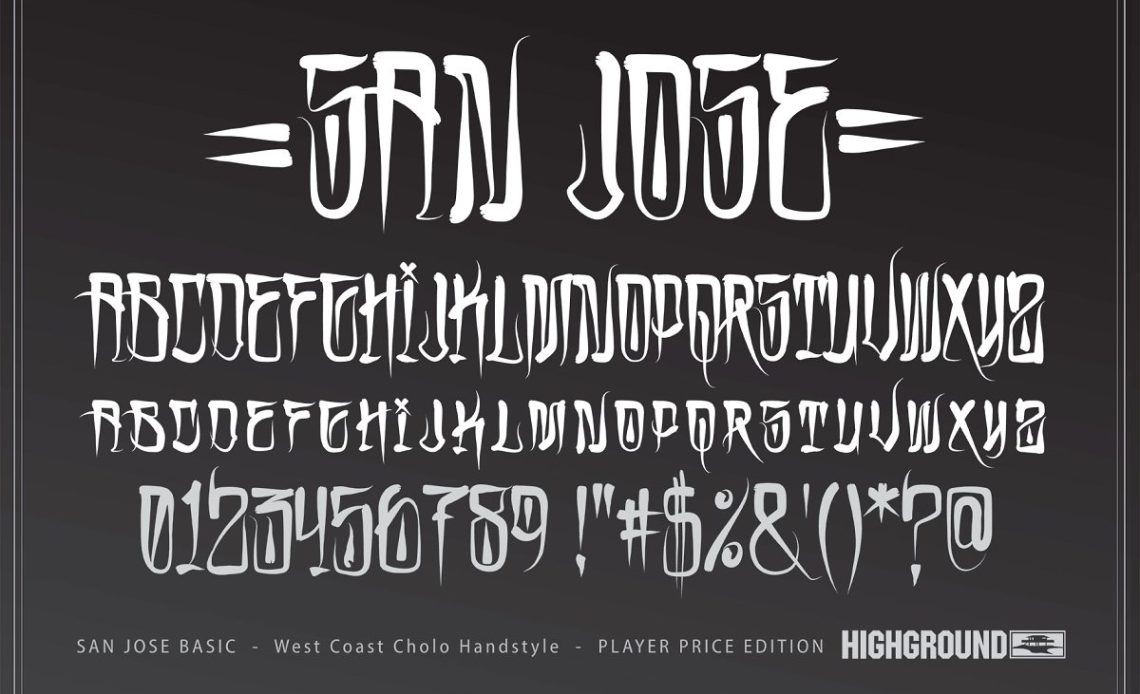
Looking for a font that's both stylish and edgy? Look no further than San Jose Basic Graffiti Font! This font family, created by the talented team at Graffiti Fonts, offers a unique blend of bold design and classic typography that's sure to make your text stand out from the crowd.
Featuring two small-caps alphabets from the bold style, as well as a wide range of numbers, symbols, punctuation, and more, San Jose Basic Graffiti Font is the perfect choice for anyone looking to add a touch of urban cool to their design work.
Whether you're creating flyers, posters, or social media graphics, San Jose Basic Graffiti Font has everything you need to make a statement. And with its clean, streamlined design, this font is versatile enough to work in a wide range of contexts.